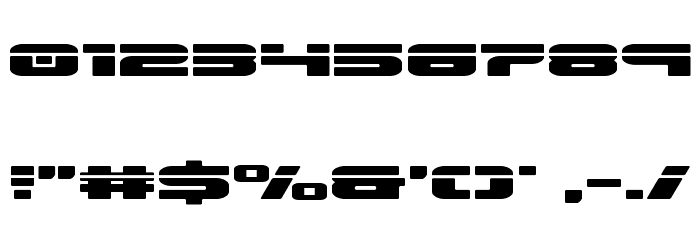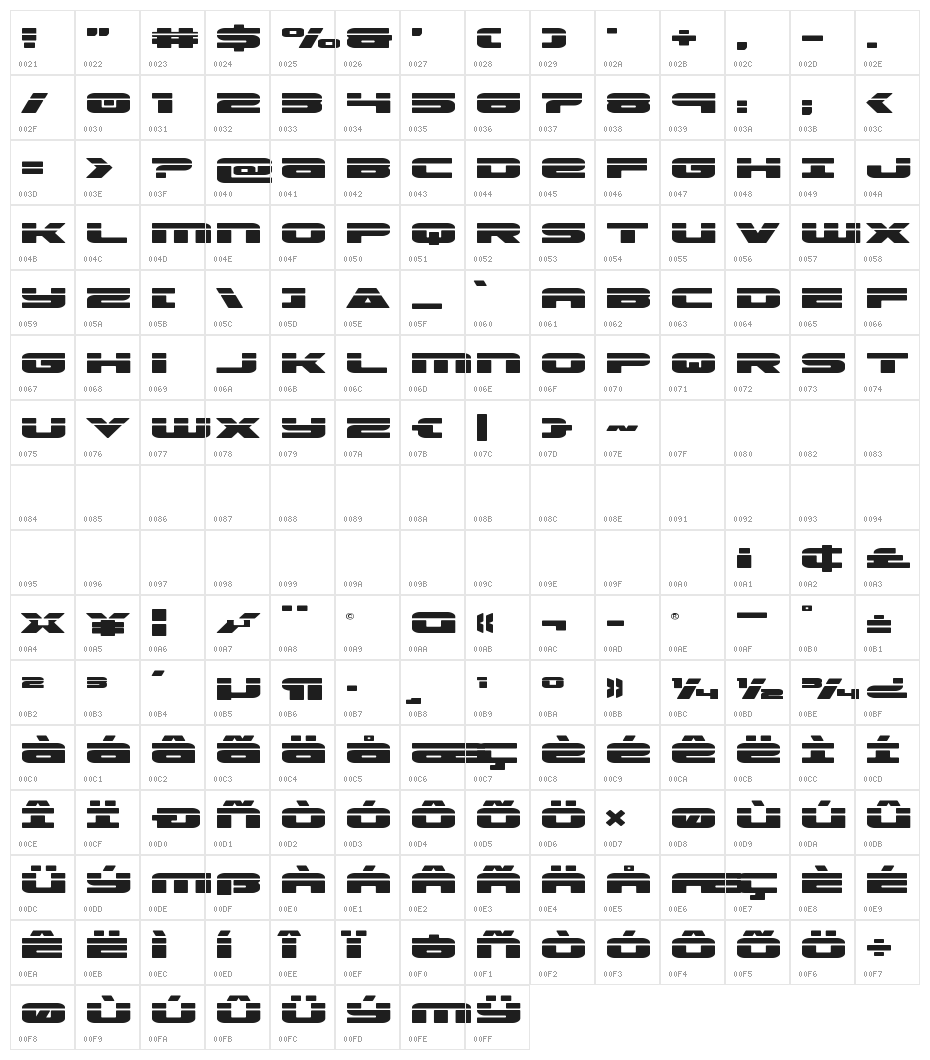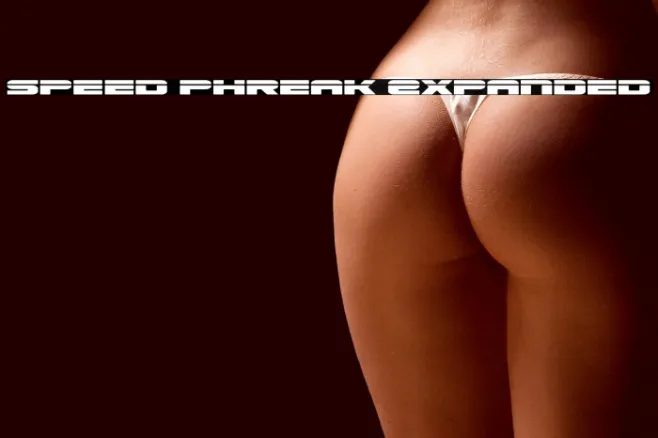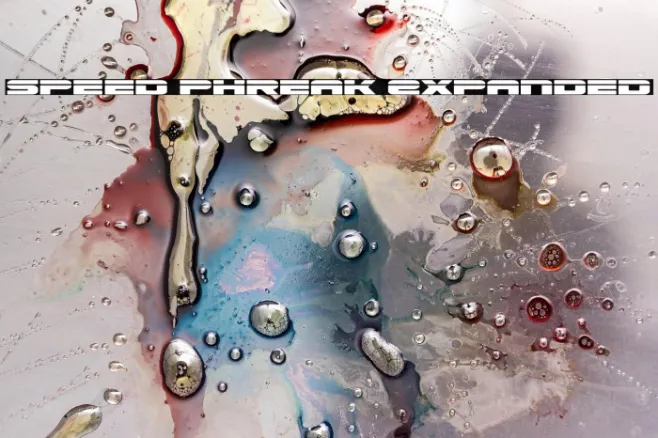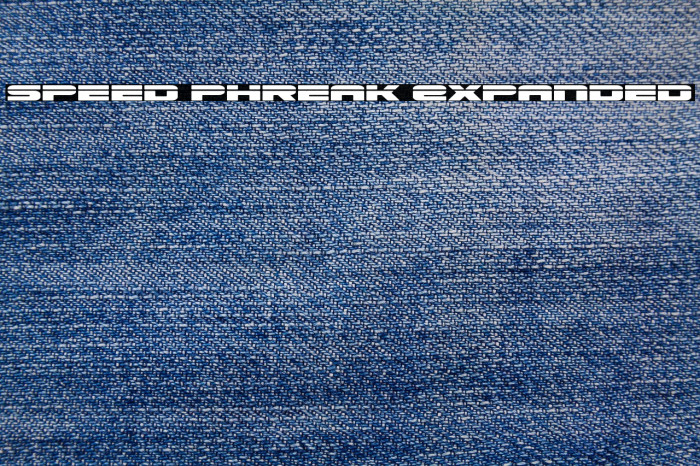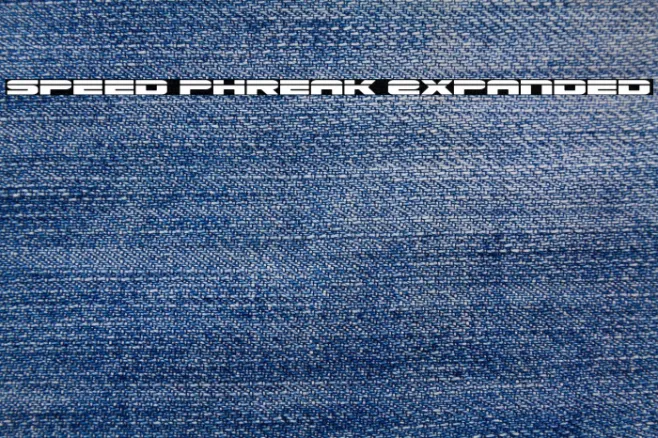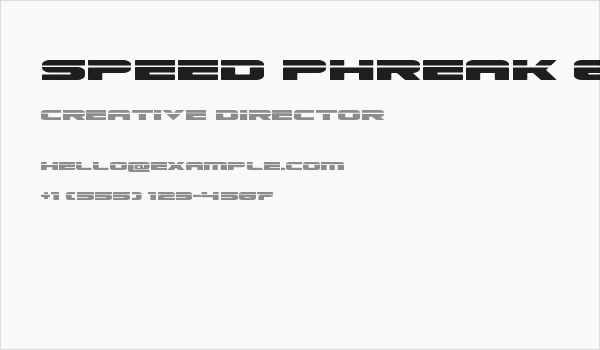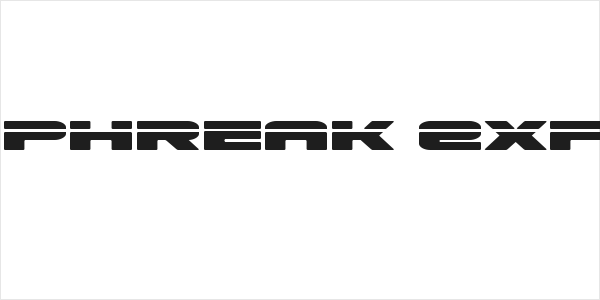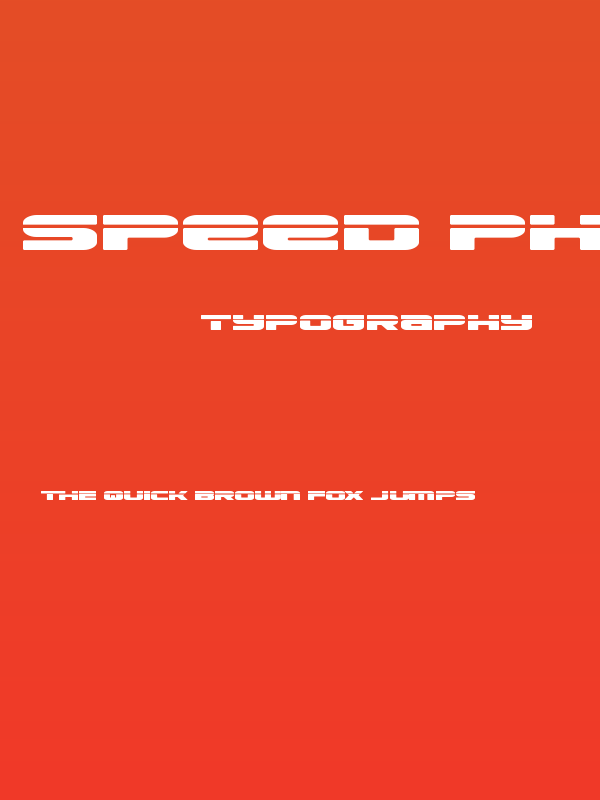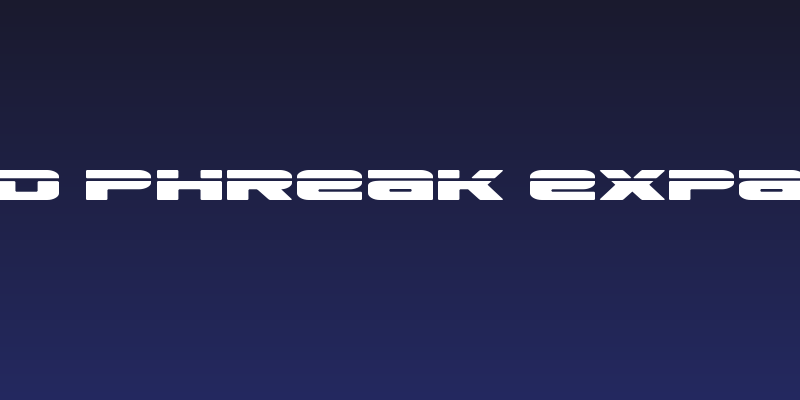
Speed Phreak Expanded Font
Speed Phreak Expanded Description
This font features a bold, futuristic design with a distinctly expanded width. The characters are constructed with a geometric style, emphasizing horizontal lines and sharp angles. The uppercase and lowercase letters maintain a consistent height, contributing to a uniform appearance. The numbers and special characters follow the same design principles, ensuring cohesion across all glyphs. The font's boldness and expanded form make it highly visible and impactful, suitable for attention-grabbing designs. Its modern aesthetic is ideal for projects that require a cutting-edge, tech-inspired look.
| Proposed Projects | Ideal for technology branding, sci-fi posters, video game titles, and modern advertising. |